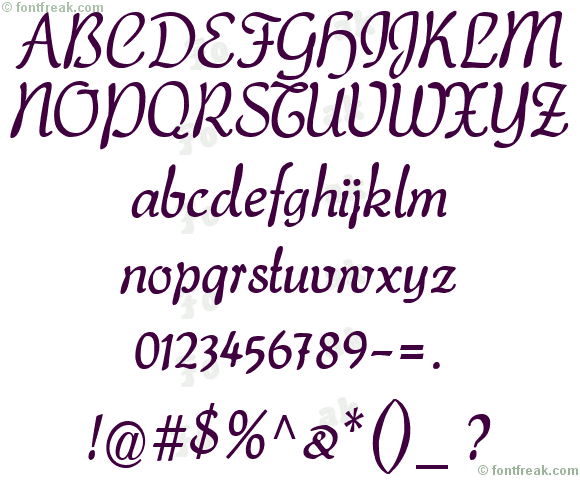
JuniorCAT
About JuniorCAT
The JuniorCAT font, designed by Peter Wiegel in 2016, is a delightful display typeface that exudes charm and personality. This font falls into the decorative category, characterized by its playful curves and whimsical flair. With a moderate stroke weight and a balanced contrast, JuniorCAT offers a visually engaging experience, making it perfect for various creative projects. The spacing is thoughtfully designed to ensure readability while maintaining a lively aesthetic, making it suitable for both titles and short text elements.
JuniorCAT is an excellent choice for a variety of applications. Its unique style makes it particularly well-suited for children's book covers, where its playful nature can capture the attention of young readers. Additionally, it can enhance wedding invitations, adding a touch of elegance and whimsy to special occasions. The font is also ideal for restaurant menus, especially those looking to convey a friendly and inviting atmosphere. Creative entrepreneurs can utilize JuniorCAT for branding materials, including logos and promotional graphics, to establish a youthful and approachable identity. Furthermore, content creators will find this font valuable for social media graphics, where eye-catching visuals are essential for engagement.
What sets the JuniorCAT font apart is its ability to blend playfulness with sophistication, making it versatile enough for both casual and formal uses. Whether you’re crafting a vibrant poster or designing a charming invitation, JuniorCAT adds a unique touch that captures attention and resonates with audiences.